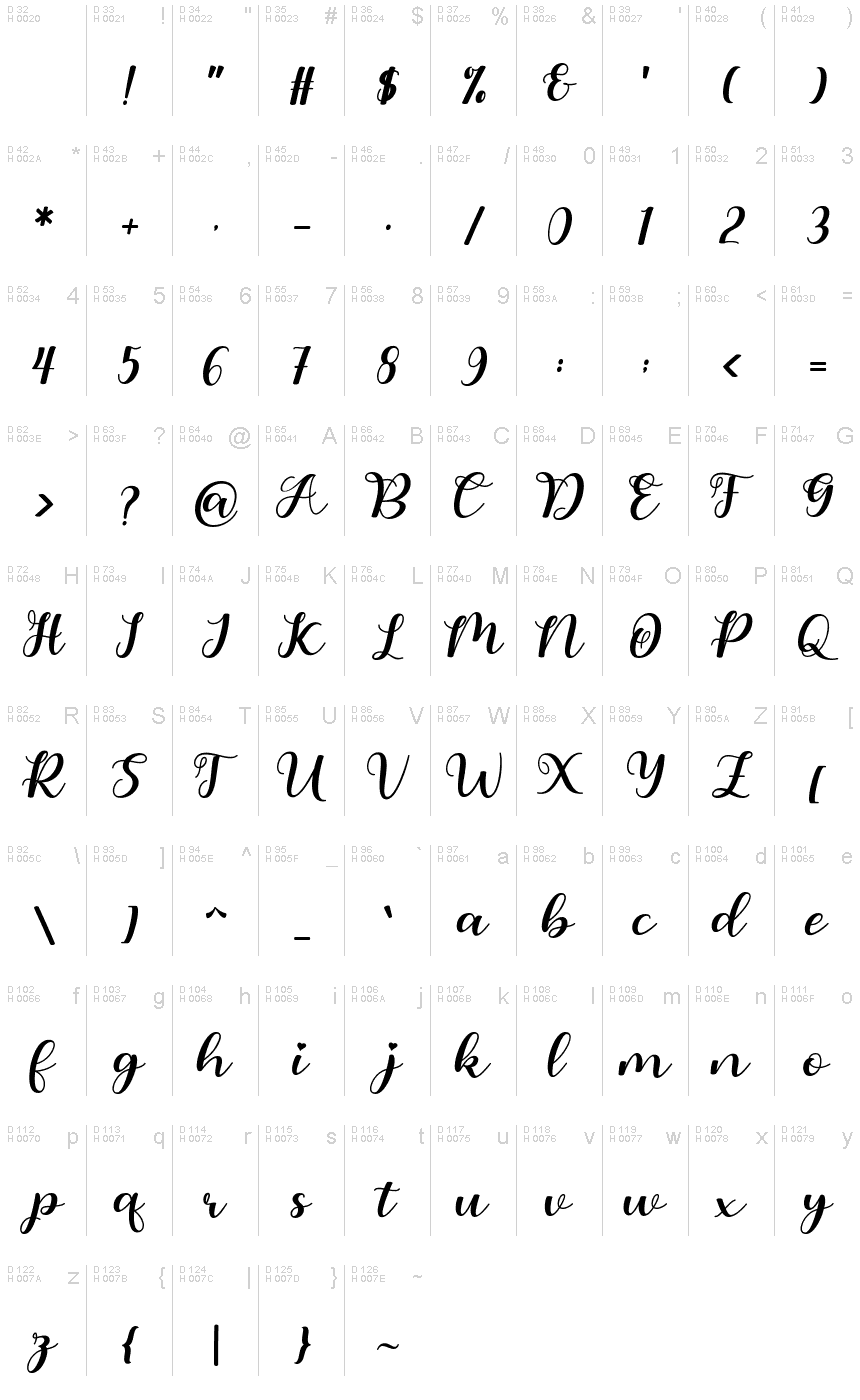
HelloLovedLovelyFont
Hello Loved Lovely, designed by Cut Story, is a mesmerizing calligraphy font that effortlessly combines elegance and grace. With its semi-light weight, this font is perfect for wedding invitations, romantic novels, or any project that requires a touch of sophistication. Its intricate strokes and flowing curves lend an air of refined beauty to logos, branding materials, and social media posts. Whether you're crafting heartfelt love letters or creating captivating blog headers, Hello Loved Lovely will add a touch of enchantment to your designs.